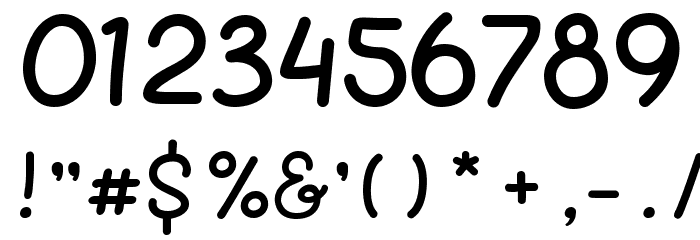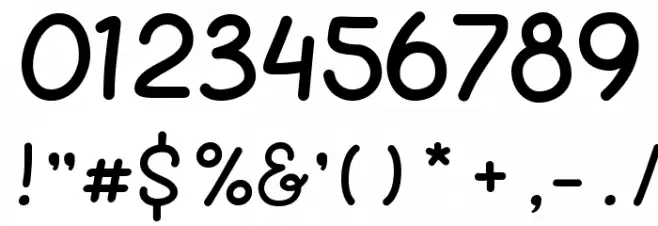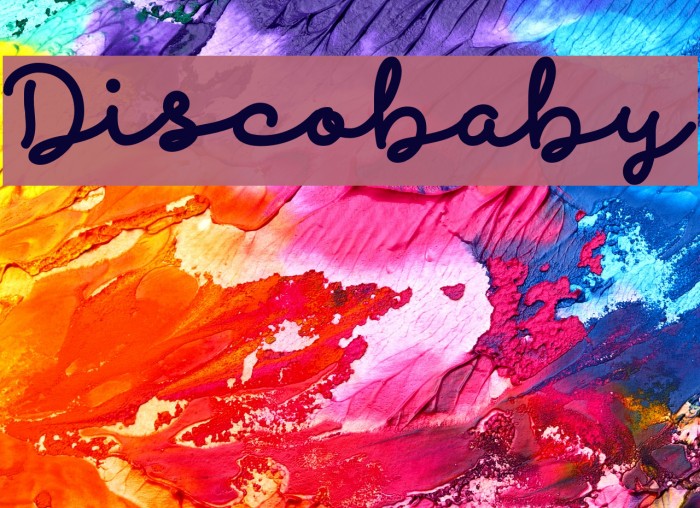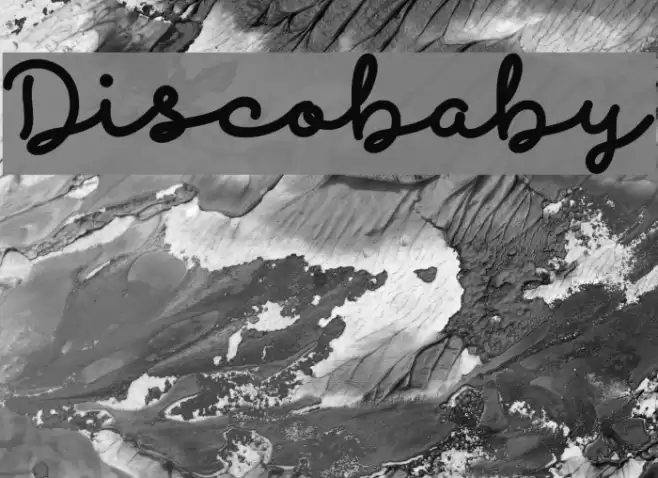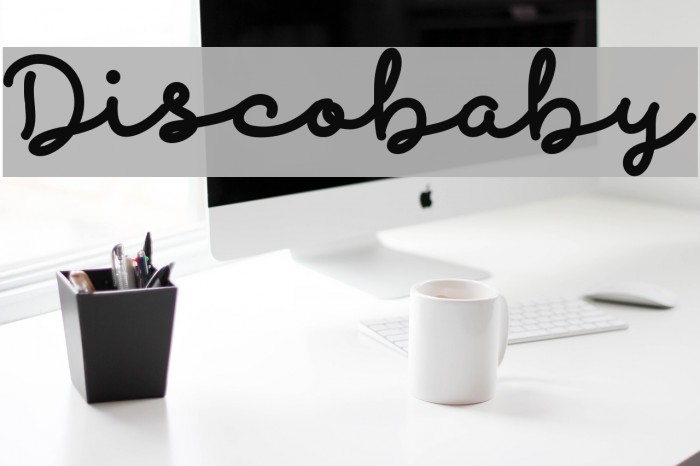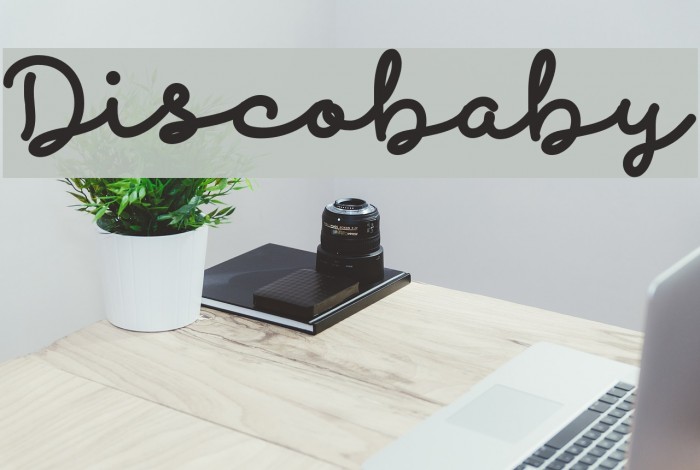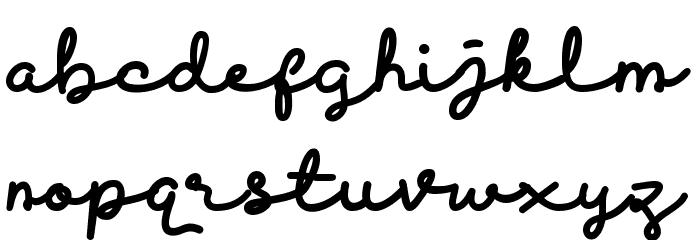
Discobaby Font
Discobaby Description
This playful and energetic font features a handwritten style with a smooth, flowing script. The characters are rounded and connected, giving a sense of movement and rhythm. The uppercase letters maintain a consistent height, while the lowercase letters exhibit a charming bounce, adding to the font's whimsical nature. The numerals are bold and clear, ensuring readability. Special characters are thoughtfully designed to match the overall aesthetic, making this font versatile for various creative projects. Its lively and informal appearance makes it ideal for designs that aim to convey fun and approachability.
| Overall Style | Playful |
| Use Case | Logos, Headlines, Invitations |
| Proposed Projects | Perfect for greeting cards, children's book covers, playful branding, and social media graphics. |